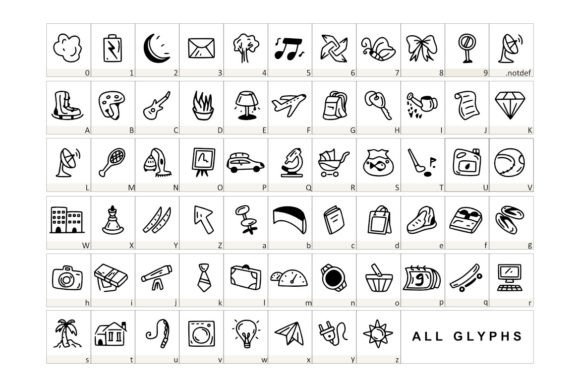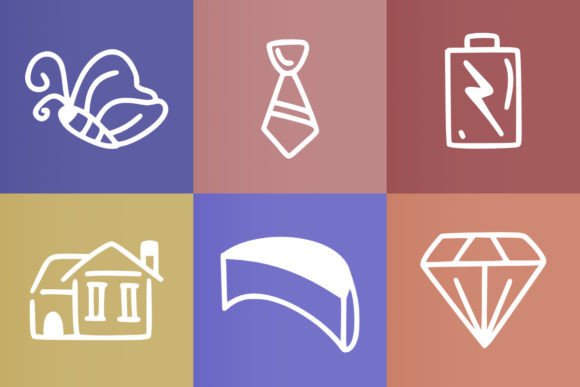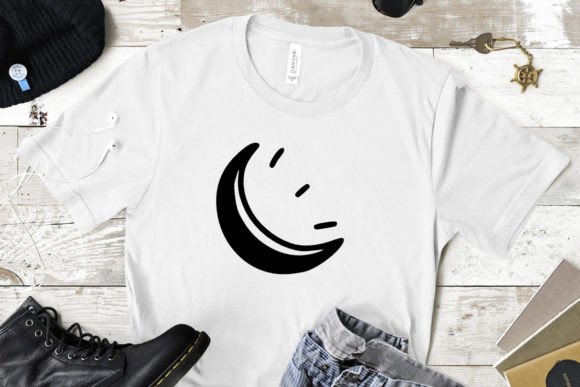
Introducing Everyday Font: The Cute and Versatile Dingbats Font for All Your Design Needs
Are you a designer, crafter, or DIY enthusiast looking for a font that can add a touch of personality to your projects? Look no further than Everyday Font, a delightful dingbats font that’s perfect for a wide range of applications. From stickers and posters to t-shirts, cards, and apparel graphics, Everyday Font is the perfect choice for anyone who wants to add a dash of cuteness and whimsy to their designs.
What is Everyday Font?
Everyday Font is a unique and versatile dingbats font that’s designed to help you create stunning visuals with ease. Dingbats fonts, also known as symbol fonts, are a type of font that features graphical symbols, shapes, and icons instead of traditional letters and numbers. Everyday Font takes this concept to the next level with its adorable and functional designs that are sure to delight your audience.
What Makes Everyday Font So Special?
So, what sets Everyday Font apart from other dingbats fonts out there? Here are just a few reasons why designers and crafters love working with this font:
- Cute and Playful Designs: Everyday Font features a wide range of adorable symbols, icons, and shapes that are perfect for adding a touch of whimsy to your designs. From cute animals and food icons to household items and decorative shapes, this font has everything you need to create visually appealing graphics.
- Highly Versatile: Whether you’re working on a commercial project or a personal DIY craft, Everyday Font is the perfect choice. Its versatility makes it suitable for a wide range of applications, including stickers, posters, t-shirts, cards, and more.
- Scalable: One of the best things about Everyday Font is that it’s highly scalable. Whether you’re working on a small sticker design or a large poster, the font will remain clear and crisp, ensuring that your graphics look professional and polished.
Project Ideas Using Everyday Font
Now that you know more about Everyday Font, let’s talk about some project ideas that you can create using this amazing font. Here are a few ideas to get you started:
- Stickers: Create custom stickers for your laptop, water bottle, or journal using Everyday Font. You can design stickers with cute icons, motivational quotes, or fun shapes to add a personal touch to your belongings.
- Posters: Design eye-catching posters for your business, event, or social media campaign using Everyday Font. You can create posters with bold headlines, colorful graphics, and inspiring messages to grab the attention of your audience.
- T-Shirts and Apparel: Create custom t-shirts, hoodies, and other apparel items using Everyday Font. You can design graphics with cute icons, funny quotes, or personalized messages to make your apparel stand out.
- Cards and Invitations: Design beautiful cards and invitations for special occasions using Everyday Font. You can create custom greeting cards, birthday cards, or wedding invitations with adorable graphics and heartfelt messages.
Tips and Tricks for Using Everyday Font
Here are a few tips and tricks to help you get the most out of Everyday Font:
- Experiment with Different Colors: Everyday Font looks great in a variety of colors, so don’t be afraid to experiment with different color schemes. You can use bright and bold colors to create eye-catching graphics or soft pastels to create a more subtle look.
- Combine with Other Fonts: Everyday Font pairs well with other fonts, so feel free to combine it with your favorite fonts to create unique and interesting graphics.
- Use for Branding: Everyday Font is perfect for branding projects, such as logos, business cards, and social media graphics. You can use the font to create a consistent visual identity for your business or brand.
| Font Name | Everyday Font |
| Author | YandiDesigns |
In conclusion, Everyday Font is a versatile and adorable dingbats font that’s perfect for designers, crafters, and DIY enthusiasts. Its cute and playful designs, high versatility, and ease of use make it an excellent choice for a wide range of projects. Whether you’re creating stickers, posters, t-shirts, or cards, Everyday Font is sure to bring a touch of personality and whimsy to your designs. So why wait? Download Everyday Font today and start creating stunning graphics with ease!